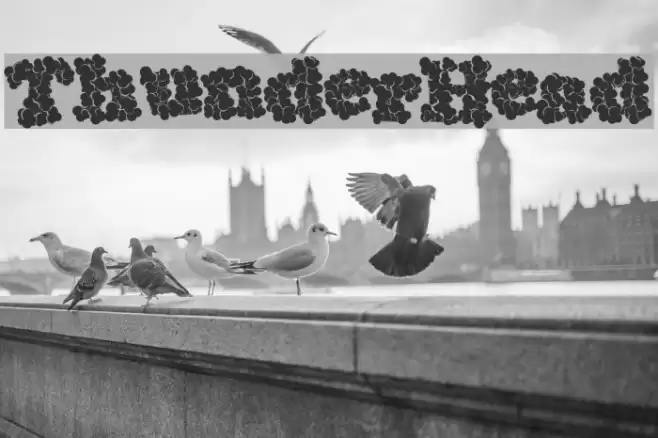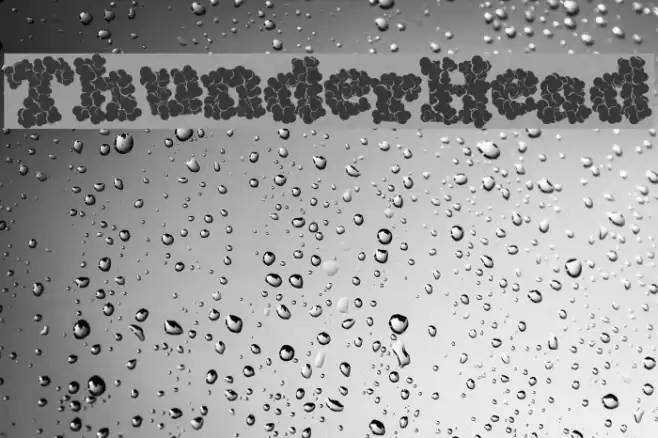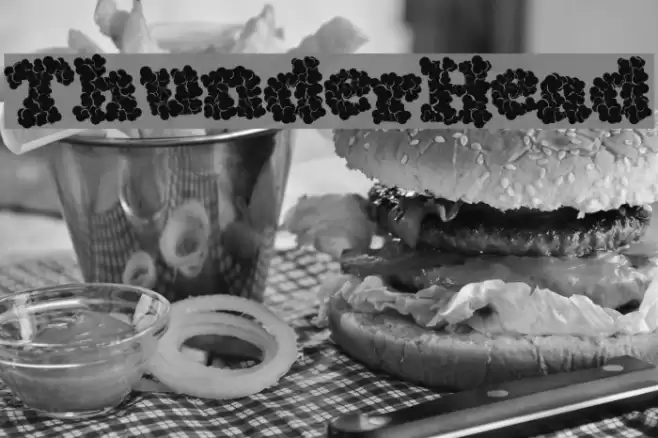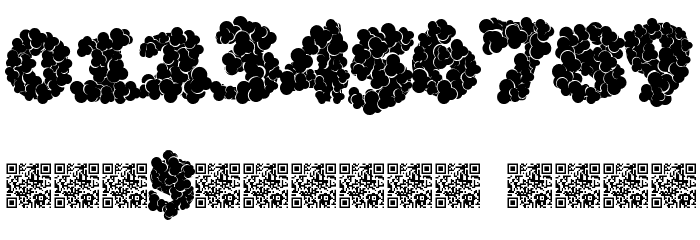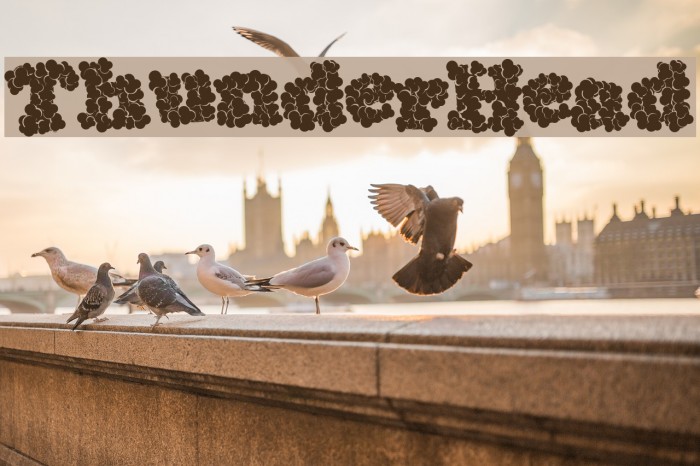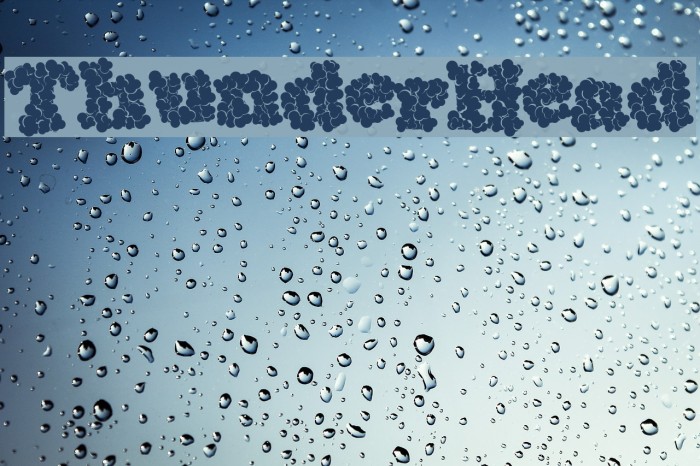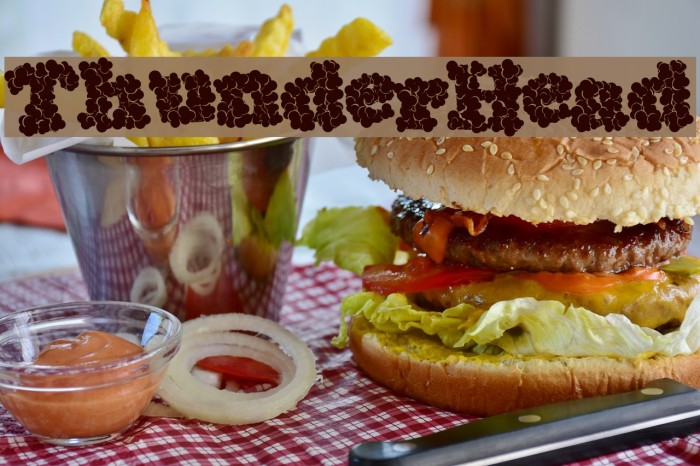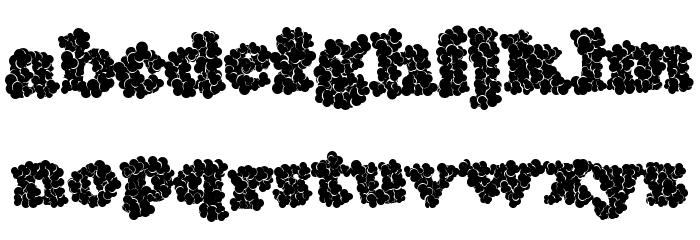
ThunderHead Font
ThunderHead Description
This font features a playful and bold design, with each character composed of clustered, cloud-like shapes. The letters have a whimsical and bubbly appearance, creating a sense of movement and energy. The uppercase and lowercase letters maintain a consistent style, while the numbers and special characters follow the same playful theme. The overall look is unique and eye-catching, making it suitable for creative and informal projects.
A playful, cloud-like font with bold, bubbly characters from Decorative fonts.
- Overall Style: Playful, Whimsical